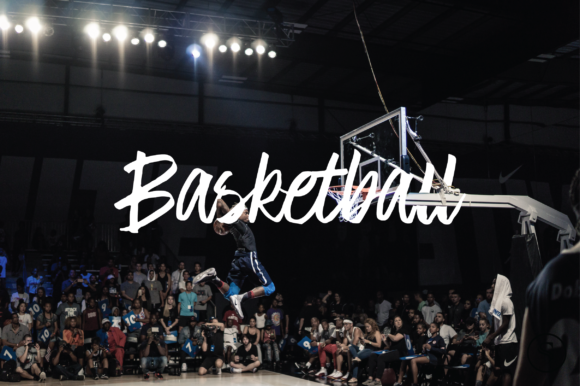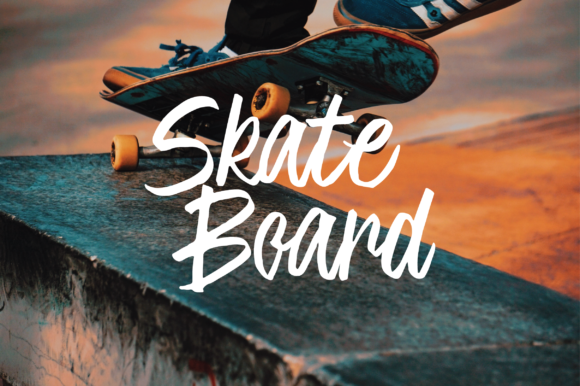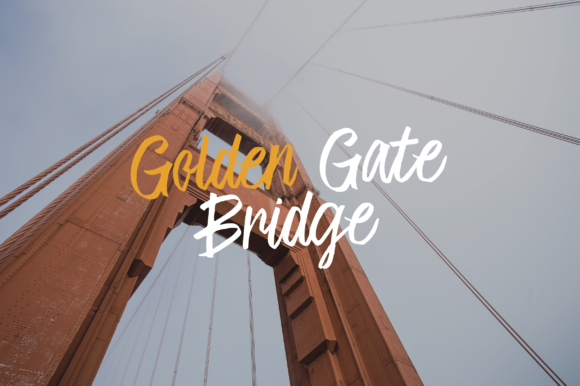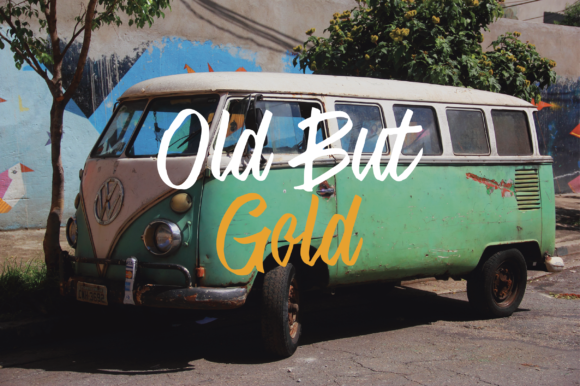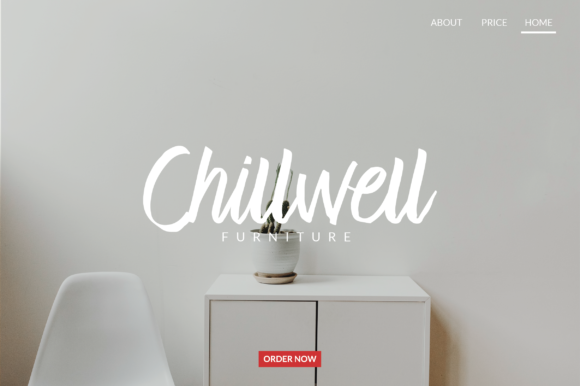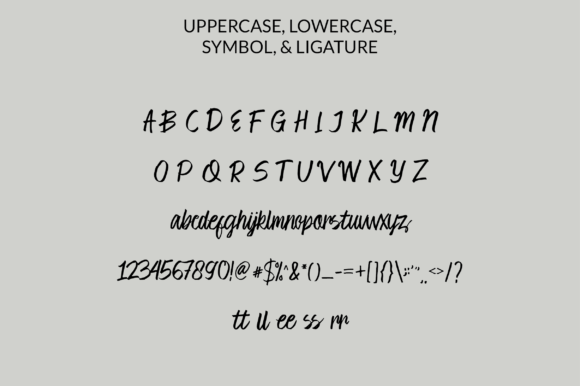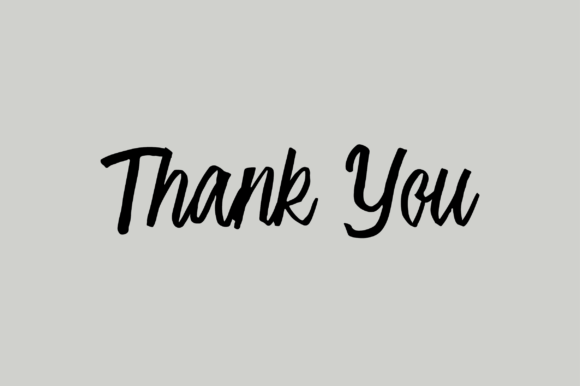
HomeScript FontsCambridge Font Script Fonts Cambridge Font FacebookXPinterestWhatsApp Cambridge Font Poster 2 Cambridge Font Poster 3 Cambridge Font Poster 4 Cambridge Font Poster 5 Cambridge Font Poster 6 Cambridge Font Poster 7 Cambridge Font Poster 8 About Cambridge Font Cambridge is a casual and smart handwritten font with a cool twist. Get inspired by its unique charm! DOWNLOAD NOW People also explored Welcome Handmade Font Corlathans Font Summer Rich Font Bratarini Font Mojito Drink Font Solitaire Font Elista Font Distoniare Script Font Cookery and Cutlery Font 326 0 TagsCambridge Font Previous articleHonesty FontNext articleWandering Waylon Font LEAVE A REPLY Cancel reply Comment: Please enter your comment! Name:* Please enter your name here Email:* You have entered an incorrect email address! Please enter your email address here Website: Save my name, email, and website in this browser for the next time I comment. Personal Use Free Archeology Personal Use Free Read more about this font Super Bubbly Font Personal Use Free Read more about this font Joystix Monospace Personal Use Free Read more about this font Huntry Personal Use Free Read more about this font BLOG Free Fonts Risk: Why Free Fonts Can Be Dangerous for Designers Free Fonts Risk: Why Free Fonts Can Be Dangerous for Designers Using free fonts is a common practice in web and graphic design. However, the... Fonts That Capture the Spirit of New York City The 10 Best Handwriting Fonts to Add Personality to Your Designs Modern Sans-Serif Fonts That Brands Love in 2025